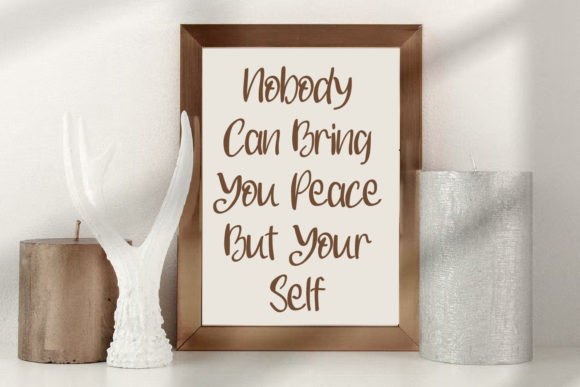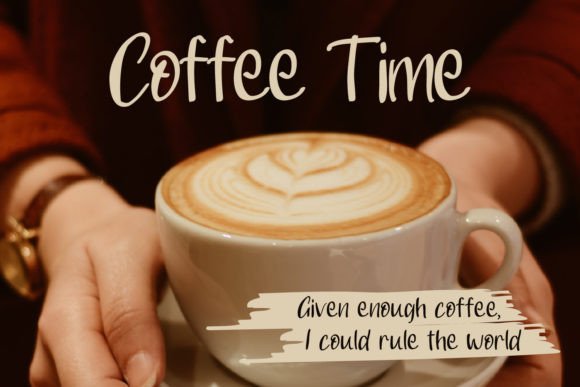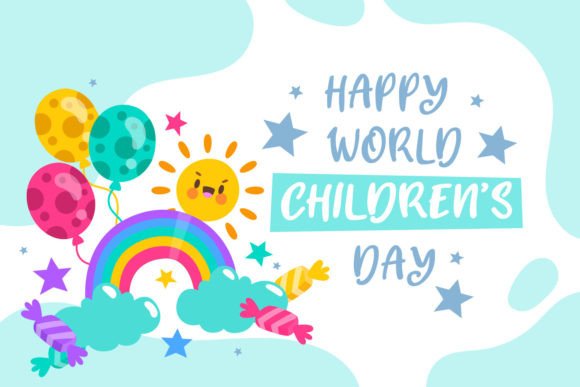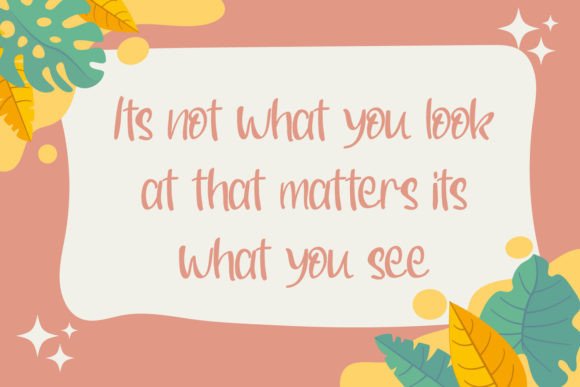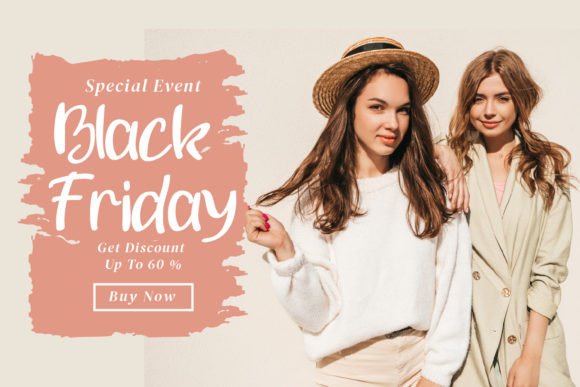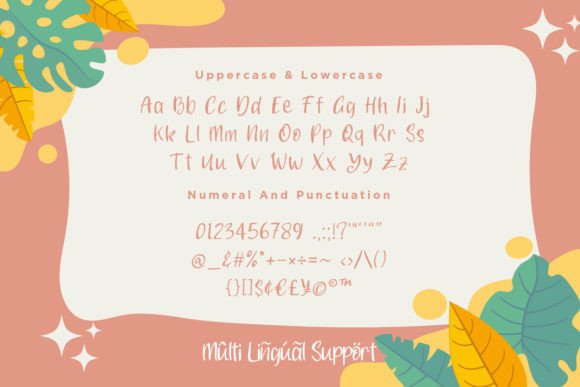
Introduction to Britanya Font
Have you ever stumbled upon a font that makes your design project come alive? For many designers, this moment of discovery is what sets their creative juices flowing. It’s the spark that ignites a new idea, a fresh perspective, or a bold statement. For us, that moment arrived when we discovered the enchanting Britanya Font.
This stunning typeface is more than just a pretty face; it’s a design resource that adds a touch of sophistication and elegance to any project. With its fluid curves and intricate details, Britanya Font is the perfect addition to any creative endeavor, whether you’re working on a logo, a brochure, or a website.
Key Features of Britanya Font
- Designed with a modern aesthetic, making it an excellent choice for contemporary design projects.
Honest Review: Britanya Font
I recently stumbled upon the Britanya Font and was excited to dive in and see what it had to offer. As a designer, I’m always on the lookout for high-quality design resources that can elevate my creative projects.
- ✨ Versatile and can be used in a variety of contexts
- ✨ Easy to customize and manipulate
- ⚠️ Limited character set, which may not be suitable for longer texts
- ⚠️ May not be as bold or striking as some other fonts
Overall, I’d say that the Britanya Font is a solid choice for designers who are looking for a high-quality, free design resource. While it may have some limitations, its versatility and ease of use make it a great option for a wide range of creative projects.
Tips for Getting the Most Out of Britanya Font
For optimal results, use the Britanya Font on a transparent background to achieve a clean and modern look. You can also experiment with different font sizes, colors, and styles to create a unique design. Additionally, consider pairing the Britanya Font with other high-quality design resources to create a cohesive and visually appealing design.
The Britanya Font is ideal for various design projects, including logos, branding materials, and creative graphics. Its high-quality design and transparent background make it a versatile font that can be used in a wide range of applications, from business to entertainment and more.